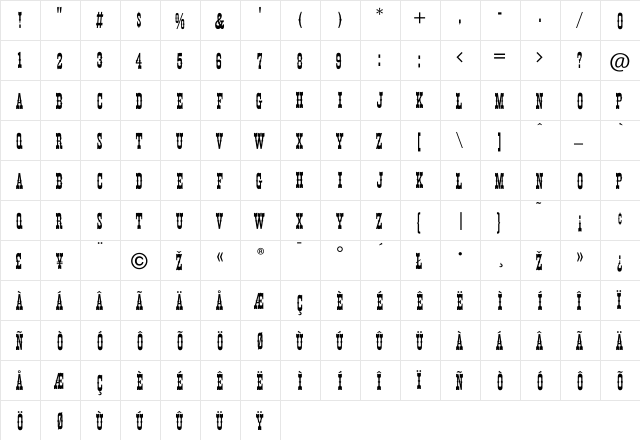
Centennial Regular
Design Context for Centennial Typeface
Centennial is a composed and adaptable typeface that performs quietly and consistently across a wide range of design contexts.